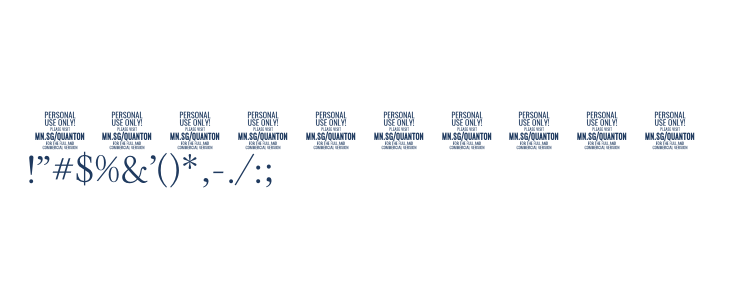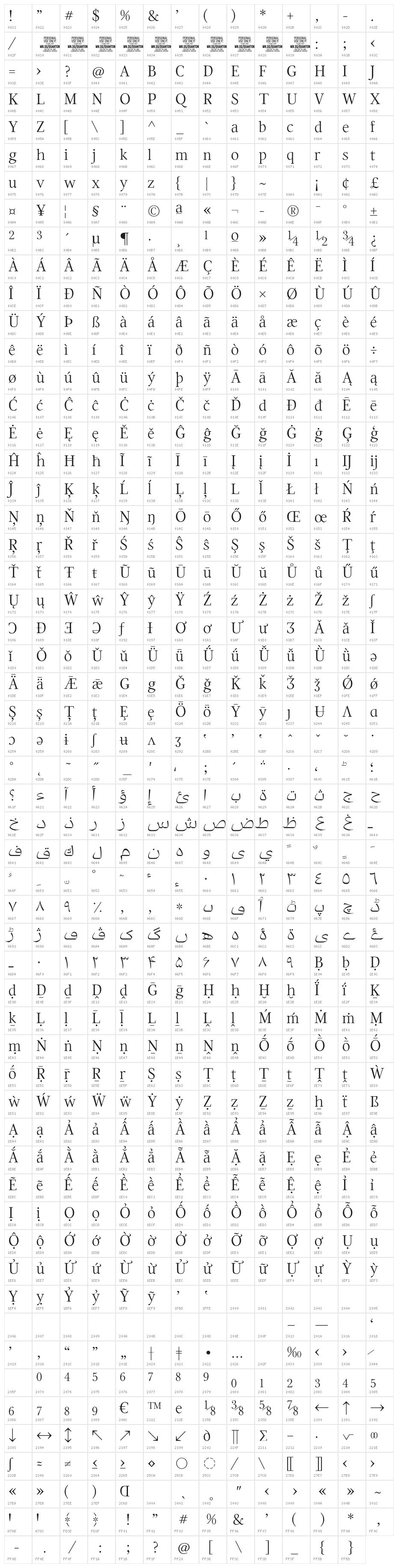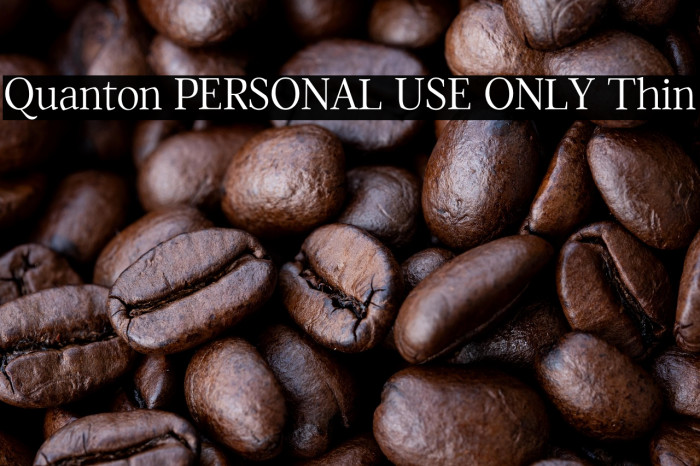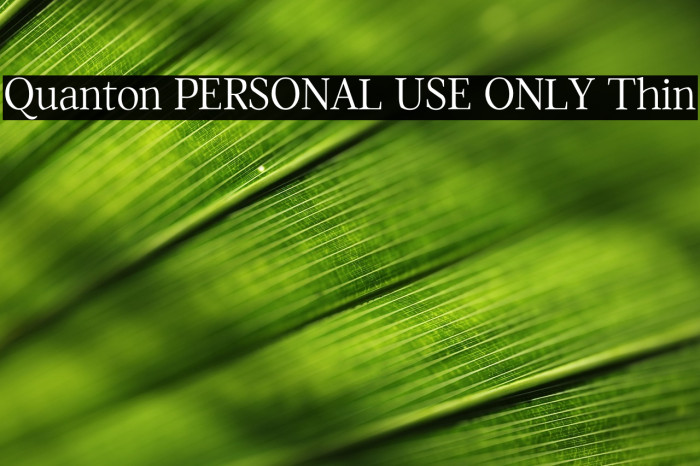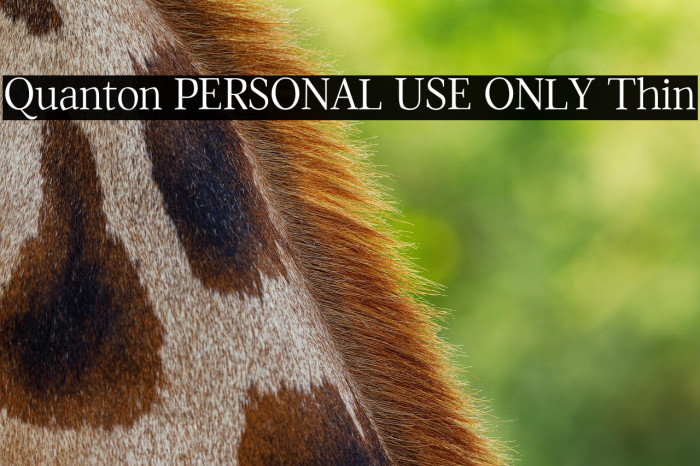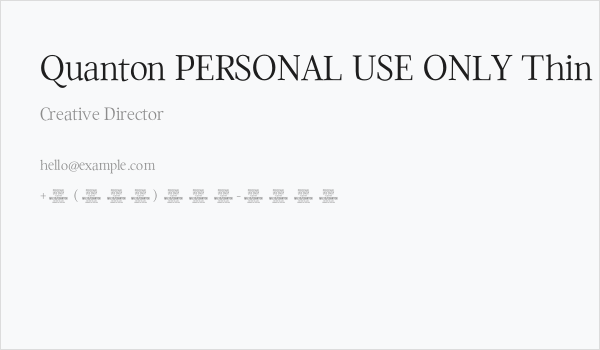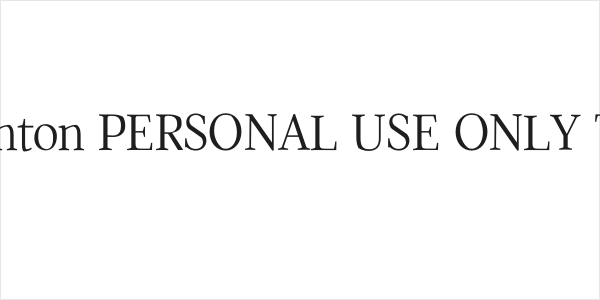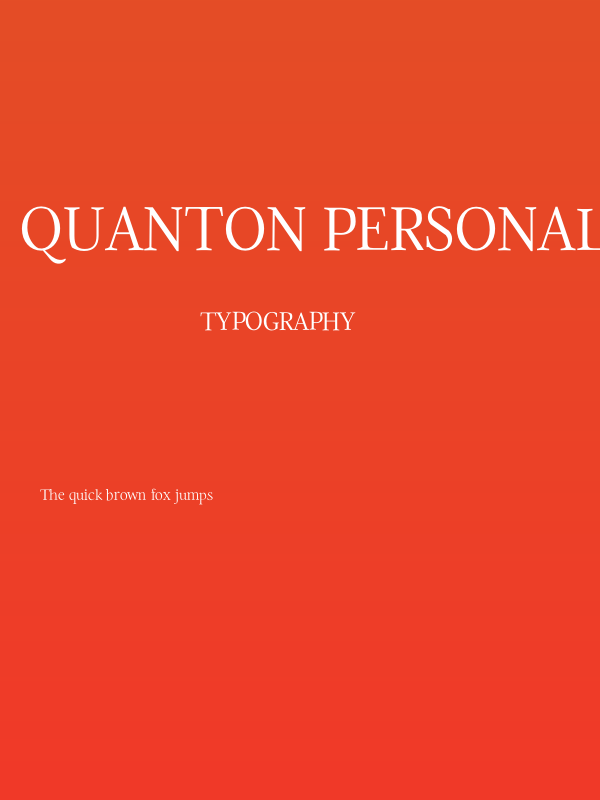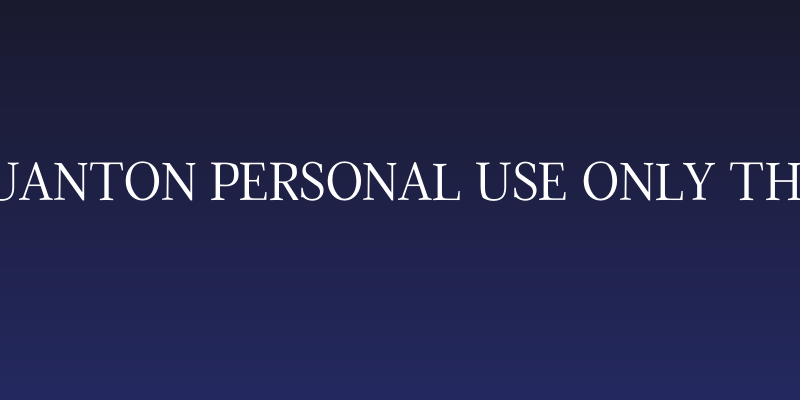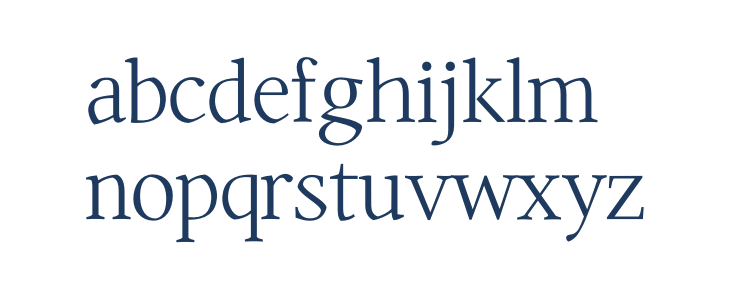
Quanton PERSONAL USE ONLY Thin Font
Quanton PERSONAL USE ONLY Thin Description
This font features a refined and elegant serif style, characterized by thin, elongated strokes that convey a sense of sophistication and modernity. The uppercase letters exhibit a classic form with subtle curves and sharp serifs, while the lowercase letters maintain a consistent flow with a slightly more rounded appearance. The numerals are well-proportioned, aligning seamlessly with the overall aesthetic. Special characters are crafted with attention to detail, ensuring versatility in various design contexts. The font's thin weight and high contrast between thick and thin strokes make it ideal for projects that require a touch of elegance and clarity.
| Proposed Projects | Ideal for luxury branding, editorial design, wedding invitations, and high-end product packaging. |